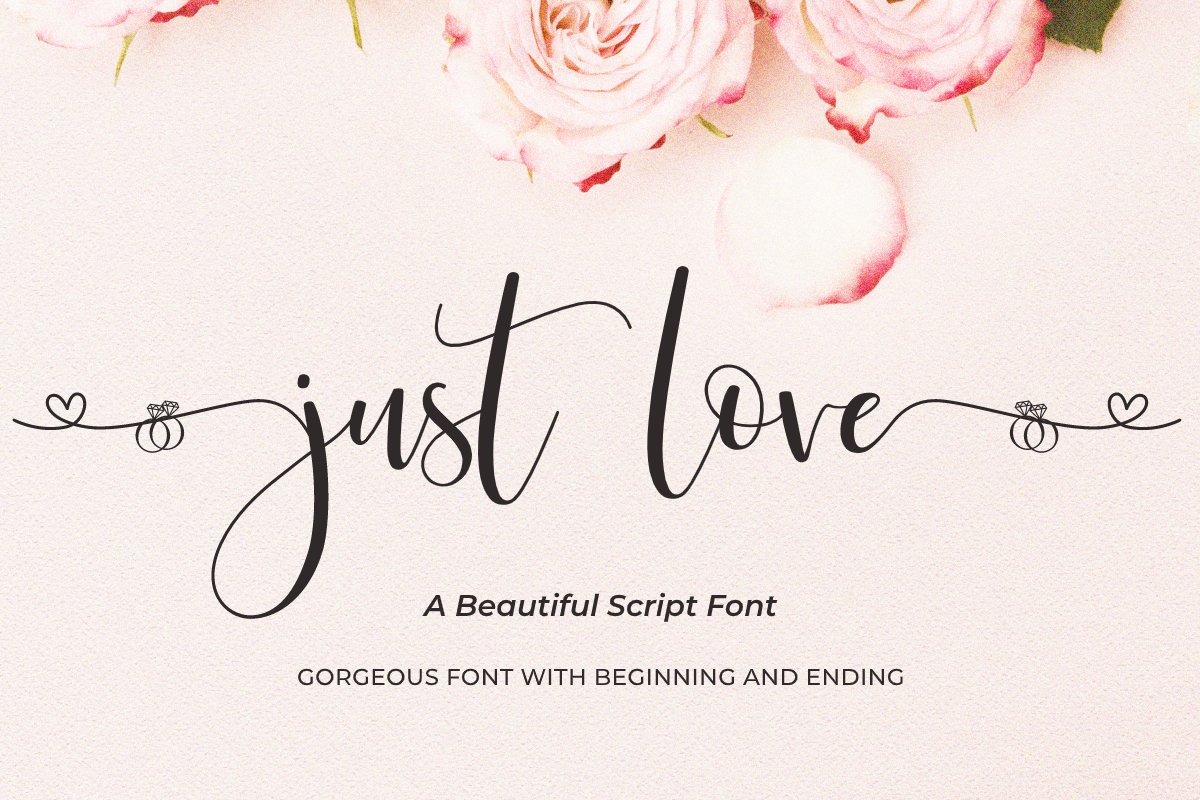
Just Love
Justlovediamond
Justlove
Just Love is a hand drawn, elegant, modern calligraphic font perfect for wedding design projects, invitations, greeting cards, signatures, watermarks, logos, handwriting and anything to show your love!.
A script calligraphy font that is simple and easy to read, yet graceful enough for any important occasion
Basic Latin A-Z and a-z
Numbers and punctuation
Alternate
Ligature
Begining and Ending
Multilingual support from Just Love :
áäåãéèëìïîòöôùüýÿžÀÁÂÃÄÅEÈÉÊËIÌÍÎÏÑOÒÓÔÕÖÙÜÚÛÝŸ